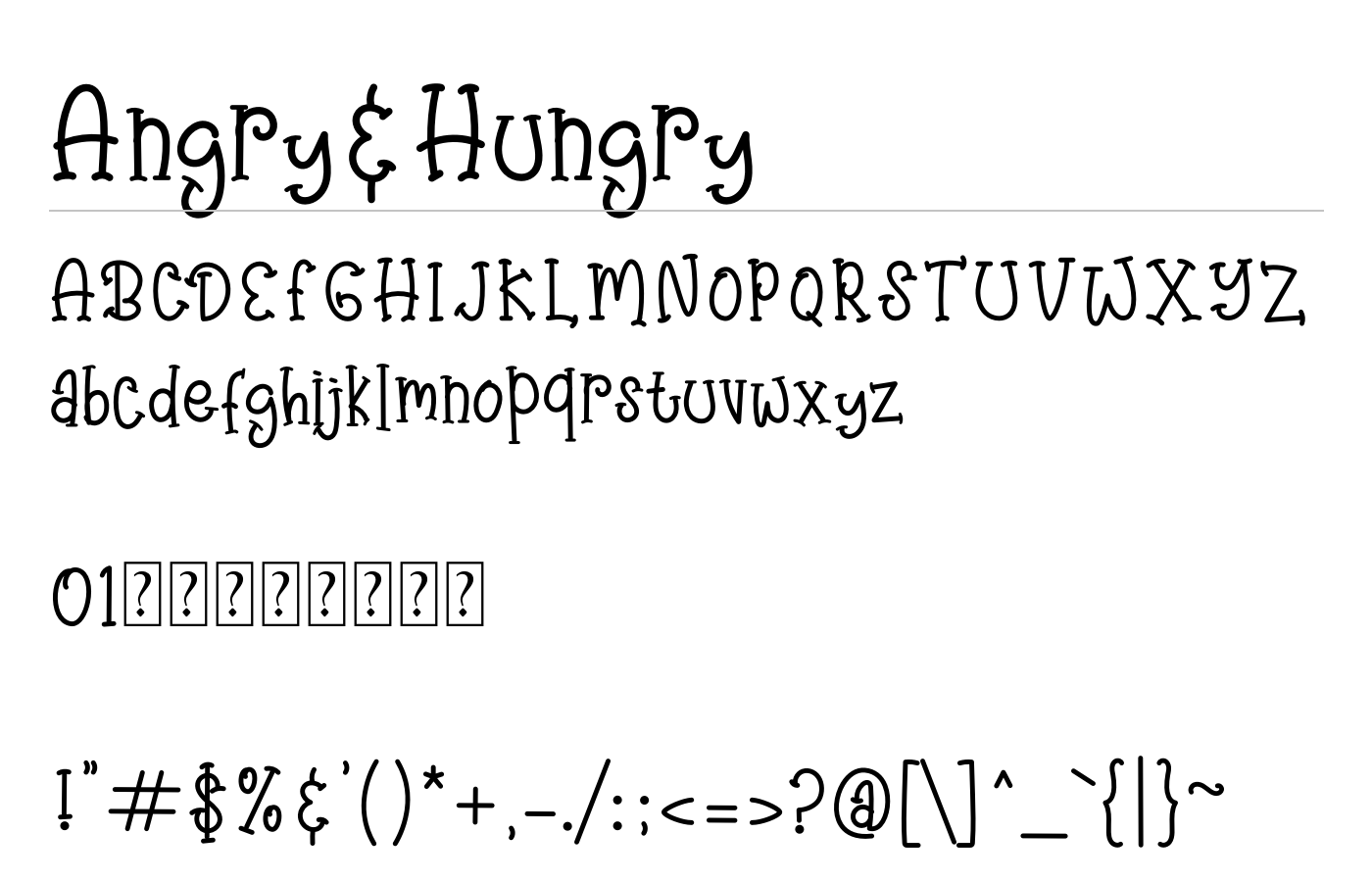
Angry&Hungry is a playful, quirky serif font with irregular, hand-drawn letterforms that give it a whimsical and casual feel. Its thin strokes and rounded terminals with slight curls add a friendly, animated character, making it ideal for creative projects, children's books, or fun branding. This font’s unique style works best in headlines, logos, or any design needing a lively and informal tone.
Angry&Hungry Font
About Angry&Hungry Font